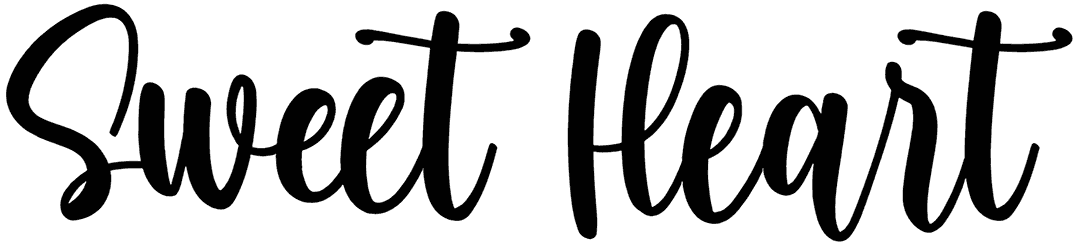
Sweet Heart Font
Leave all your love font needs to us and we’ll always hook you up with something cool like Sweet Heart here. Isn’t it just the best at decorating your Christmas cards, Mother’s Day social media content, or summer posters?
On top of that, it possesses such a sweet romantic touch that you can consider it one of the finest Valentine’s Day fonts for any design related to this holiday. Let’s just say everything is ready for you to wow your audience.
This font retains a classy calligraphic influence while feeling contemporary and fresh. This versatility will attract a wide range of creative ideas, from letterheads and titles to stationery.